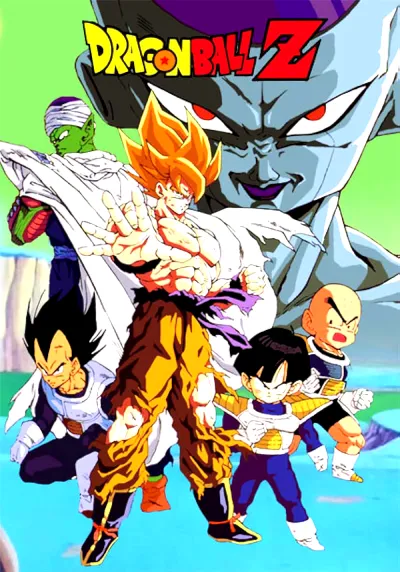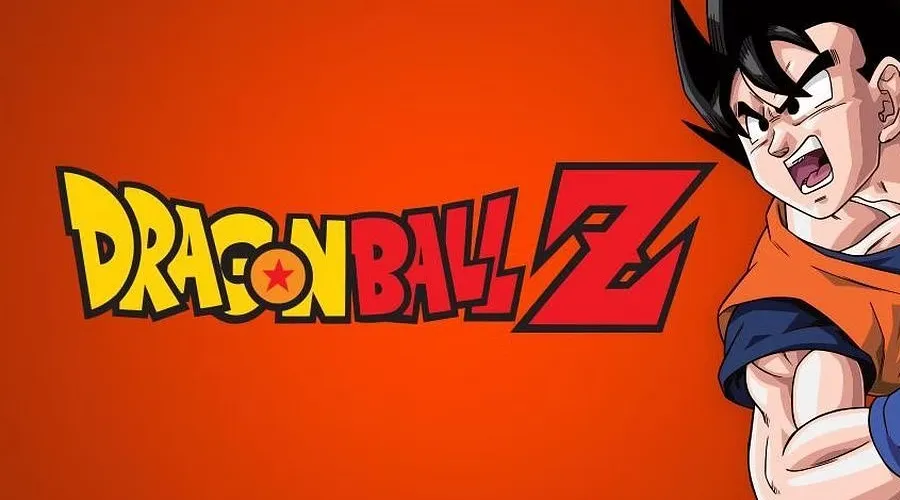
Dragon Ball Z font
Dragon Ball Z Font
The Dragon Ball Z font, known as Saiyan Sans, is a fan-made typeface designed by Ben Palmer to imitate the logo of the popular anime series Dragon Ball Z. It is available in three weights and includes only uppercase letters. This font is free for both personal and commercial use and contains 53 defined characters and 52 unique glyphs, covering the Basic Latin and Latin-1 Supplement unicode character ranges.